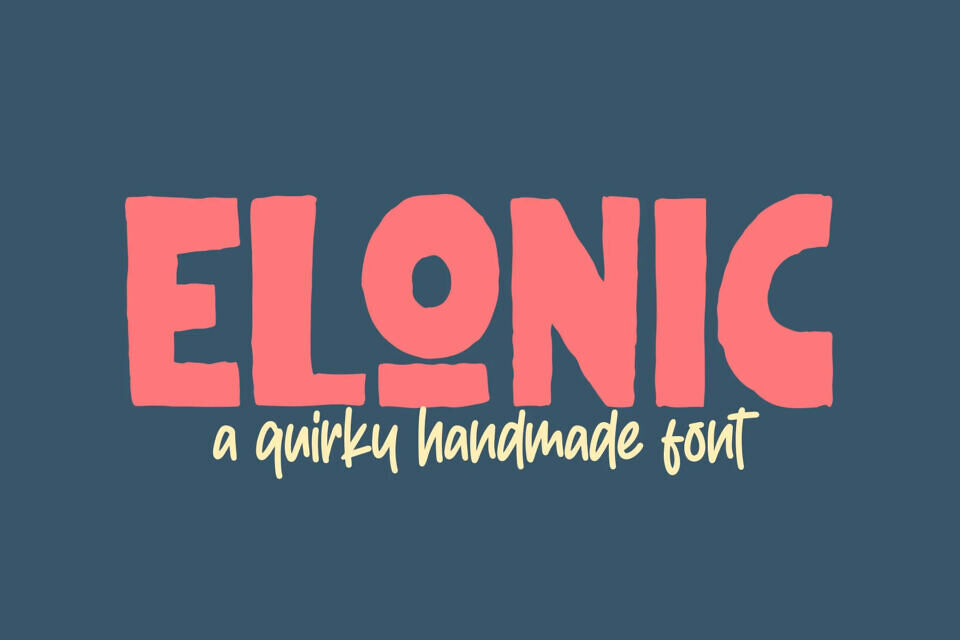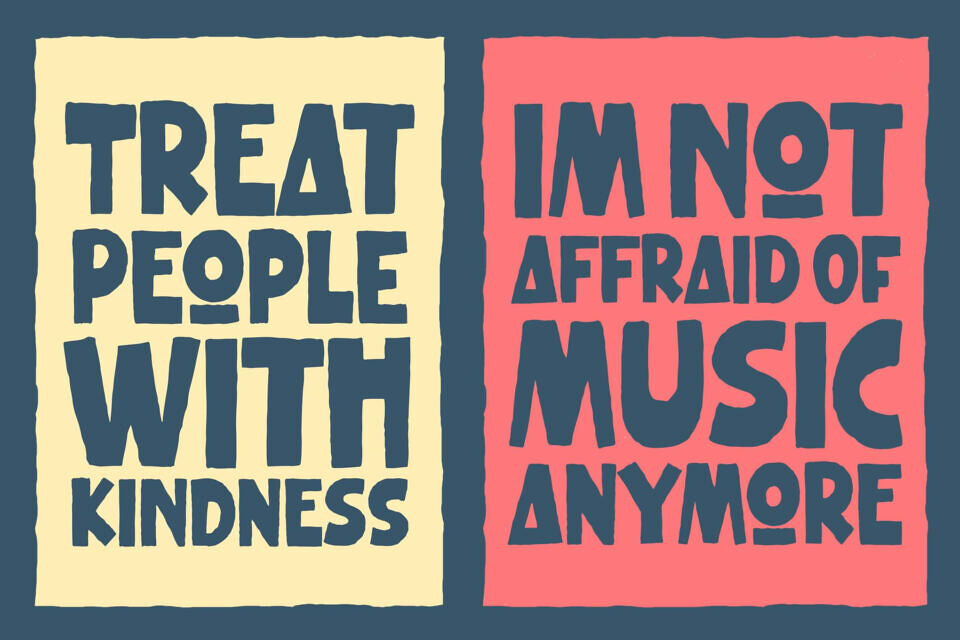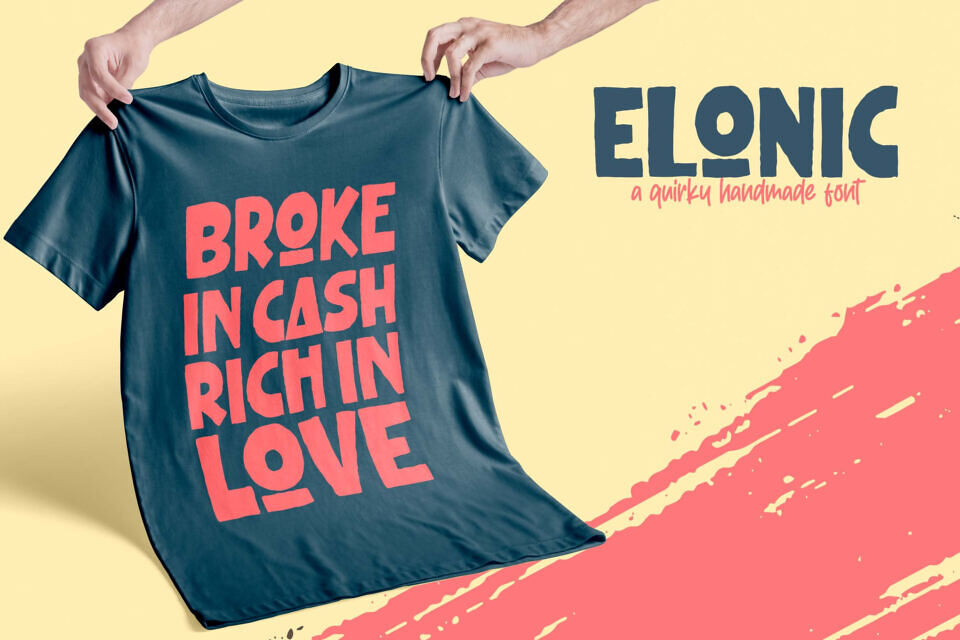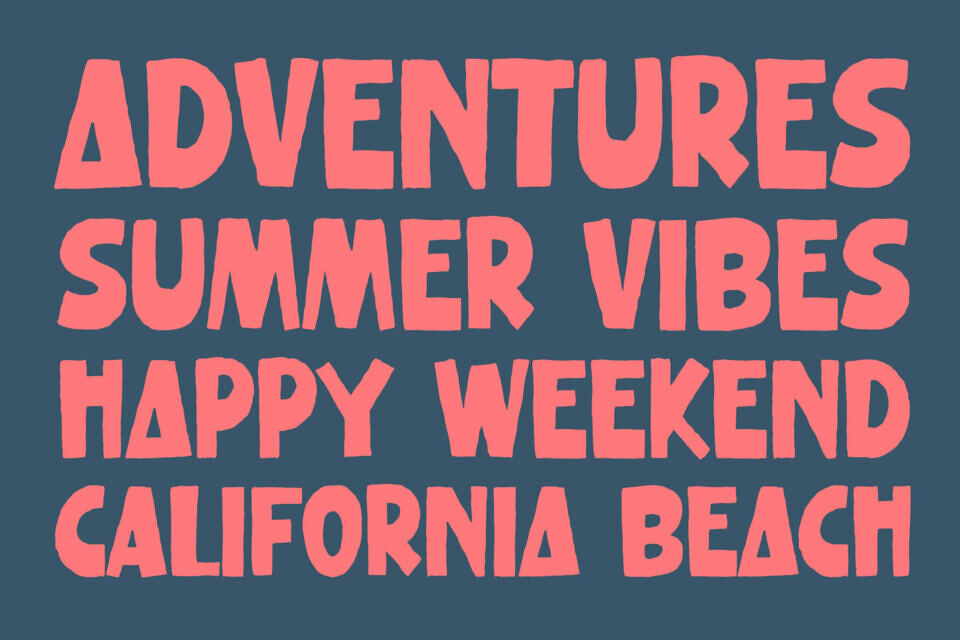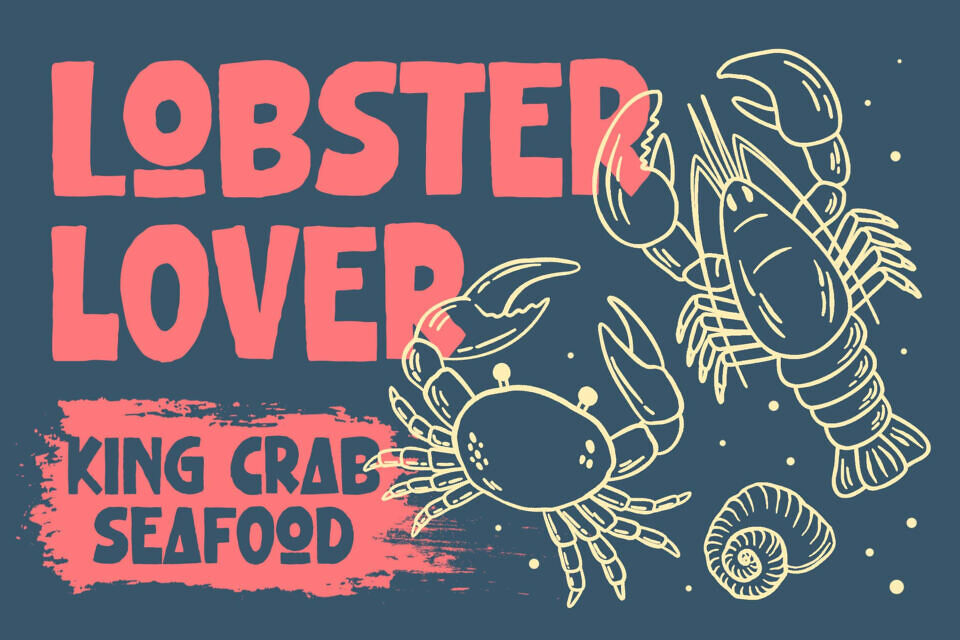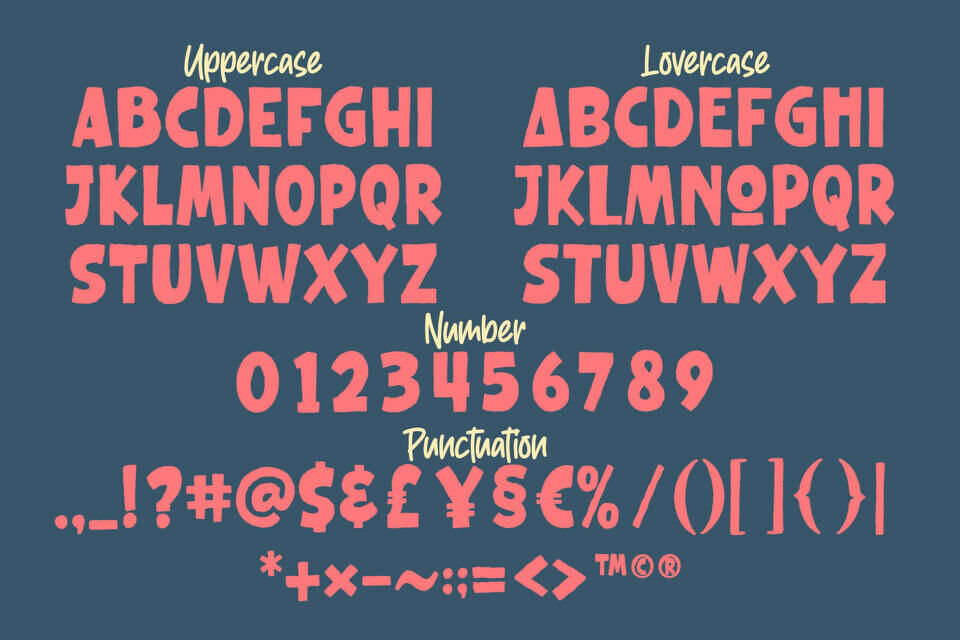
Elonic is a Quirky Handmade Font made for any professional project branding, such as logotype, watermarks, poster, branding, promotions, product packaging, etc.
Every letter has a quirky style design. Elonic font includes a full set of quirky uppercase and lowercase letters, numerals and punctuation.